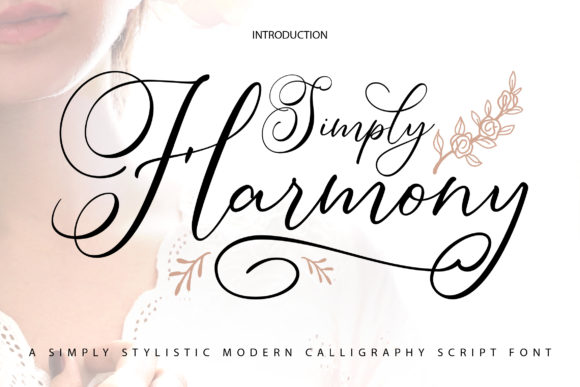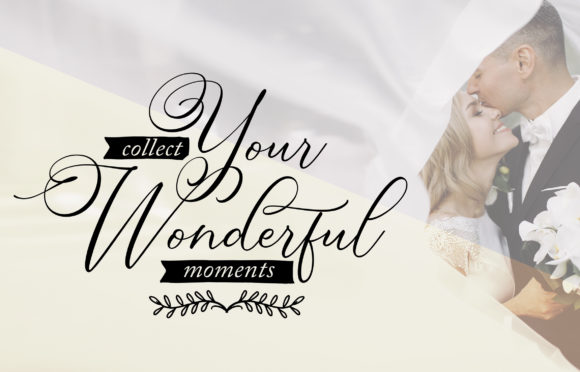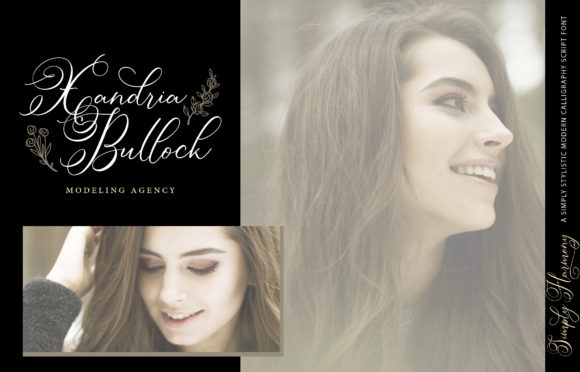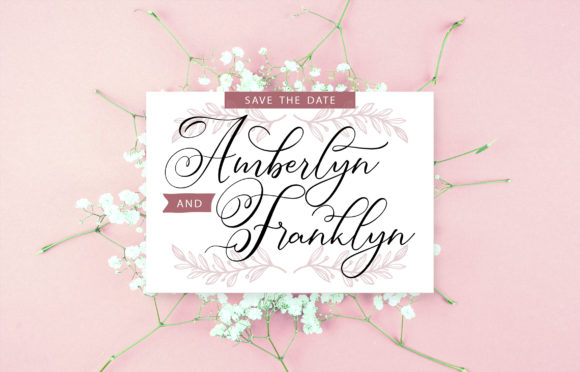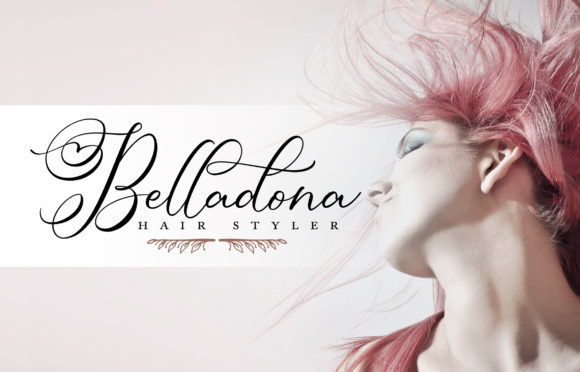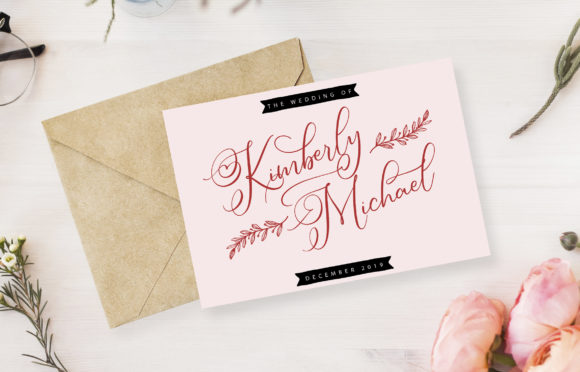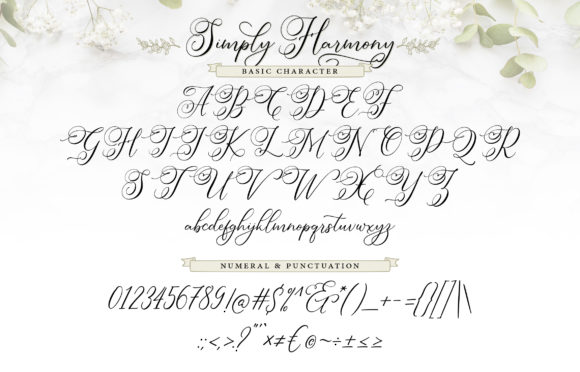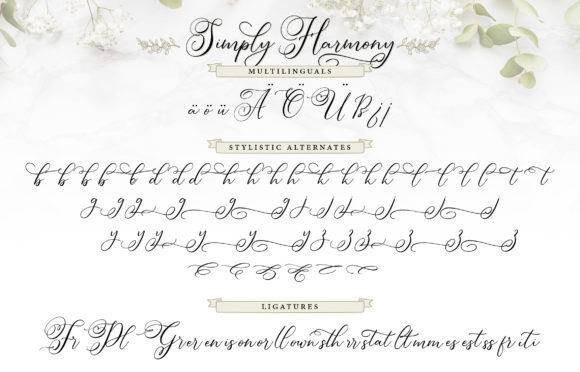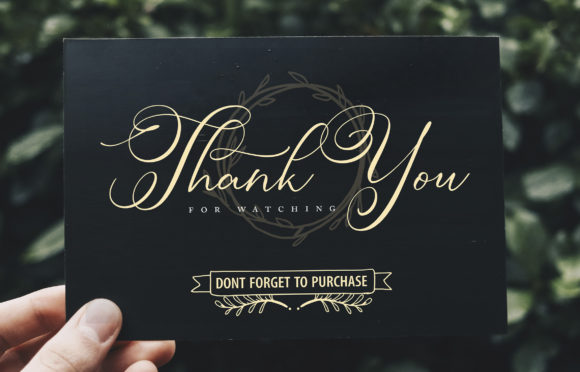
Simply Harmony Font
About Simply Harmony Font
Simply Harmony is a stunning and cute handwritten font that will turn any design project into a true standout. Fall in love with its incredibly romantic swashes!